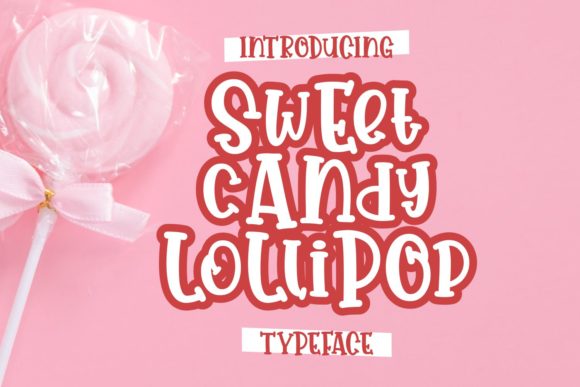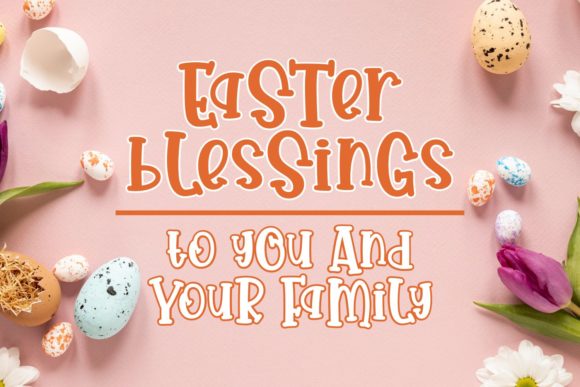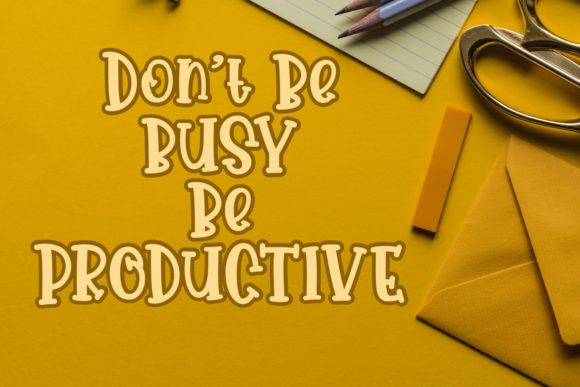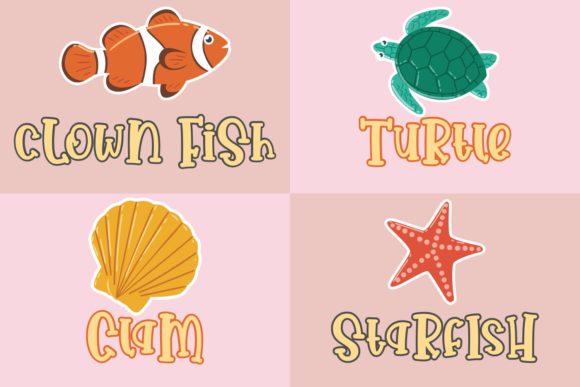
Sweet Candy Lollipop Font
About Sweet Candy Lollipop Font
Sweet Candy Lollipop is a sweet, soft hand-lettered handwritten font. The playful rounded characters make it the perfect font for creating stunning art. Whether it’s for web, print, moving images or anything else – Sweet Candy Lollipop will look spectacular.